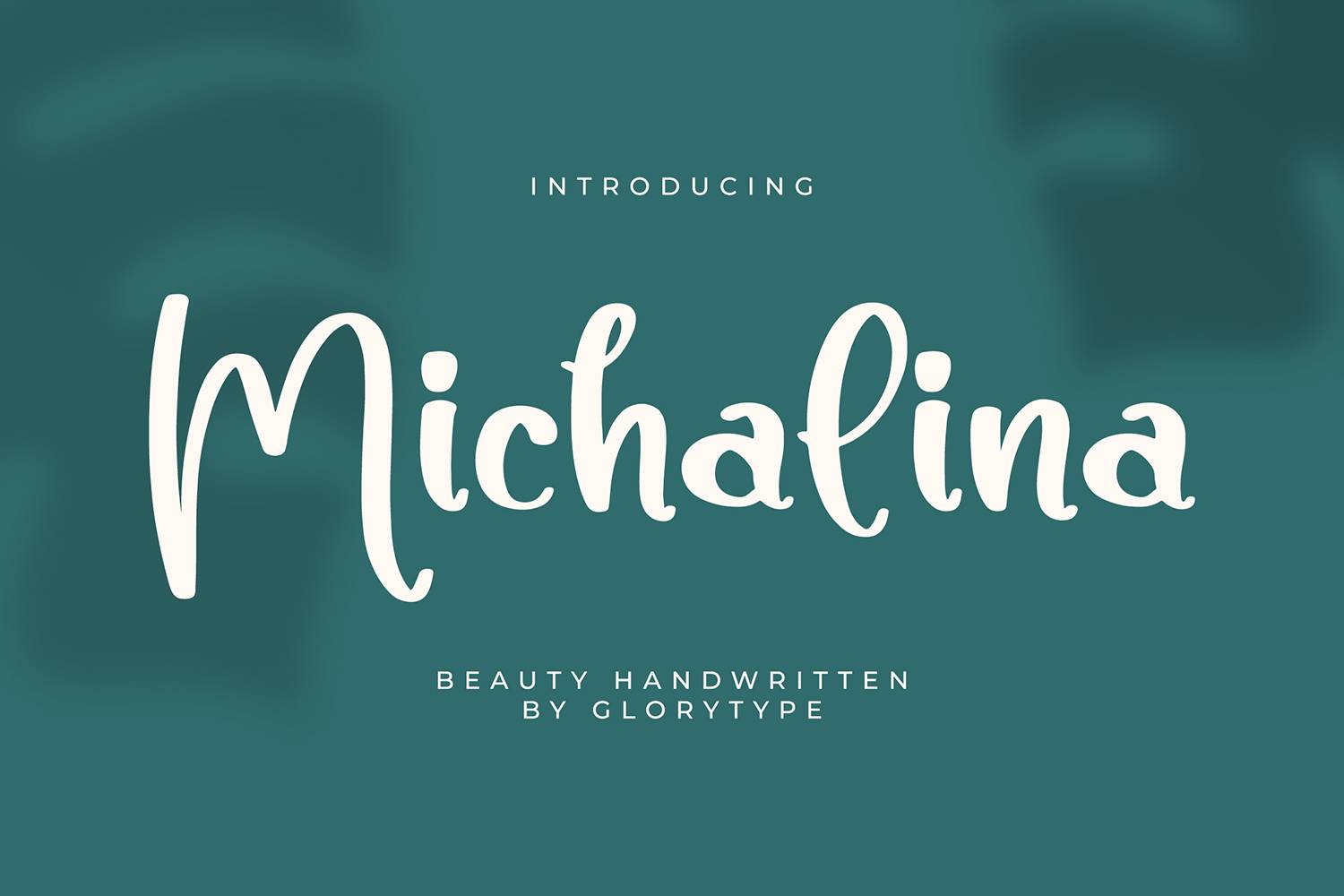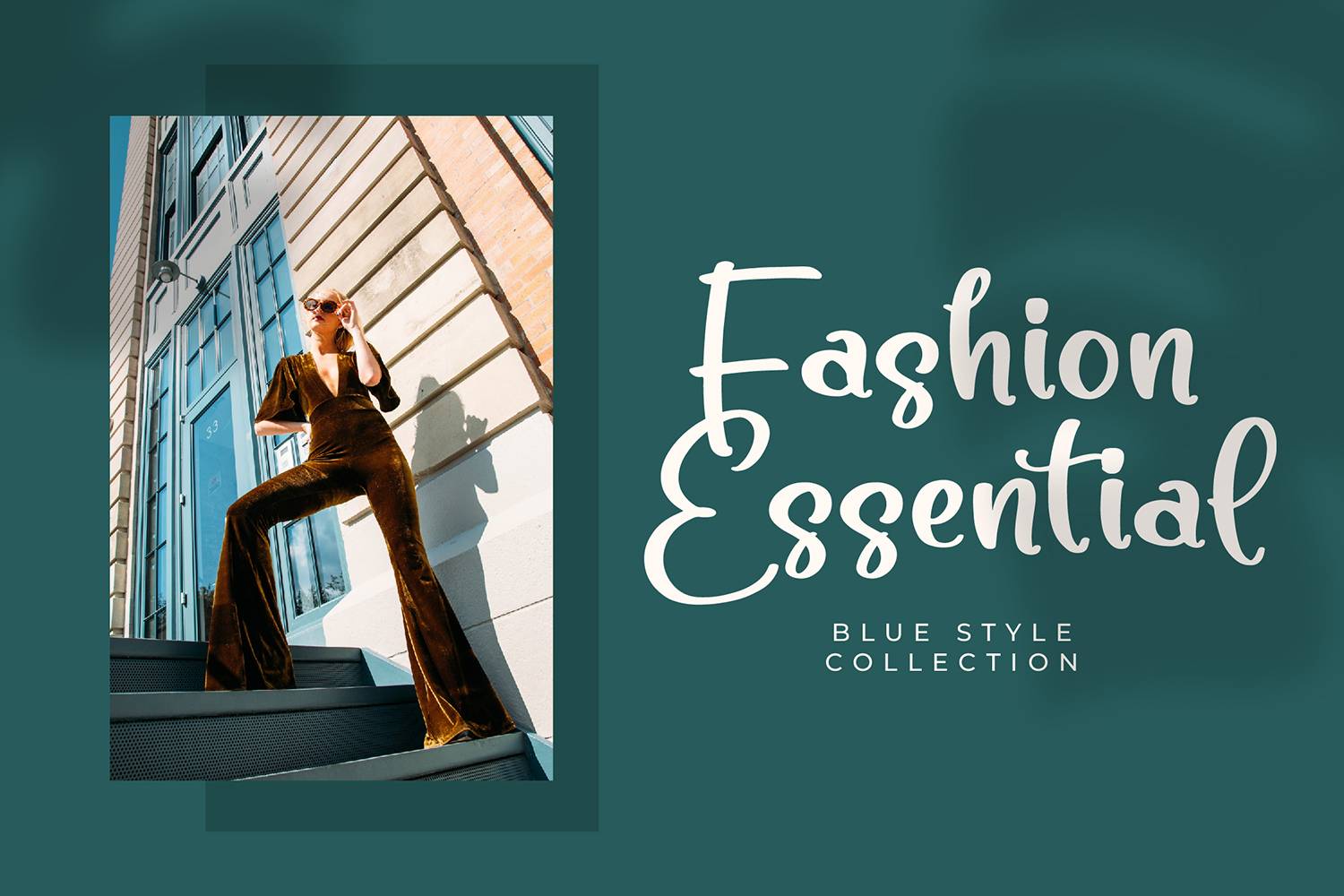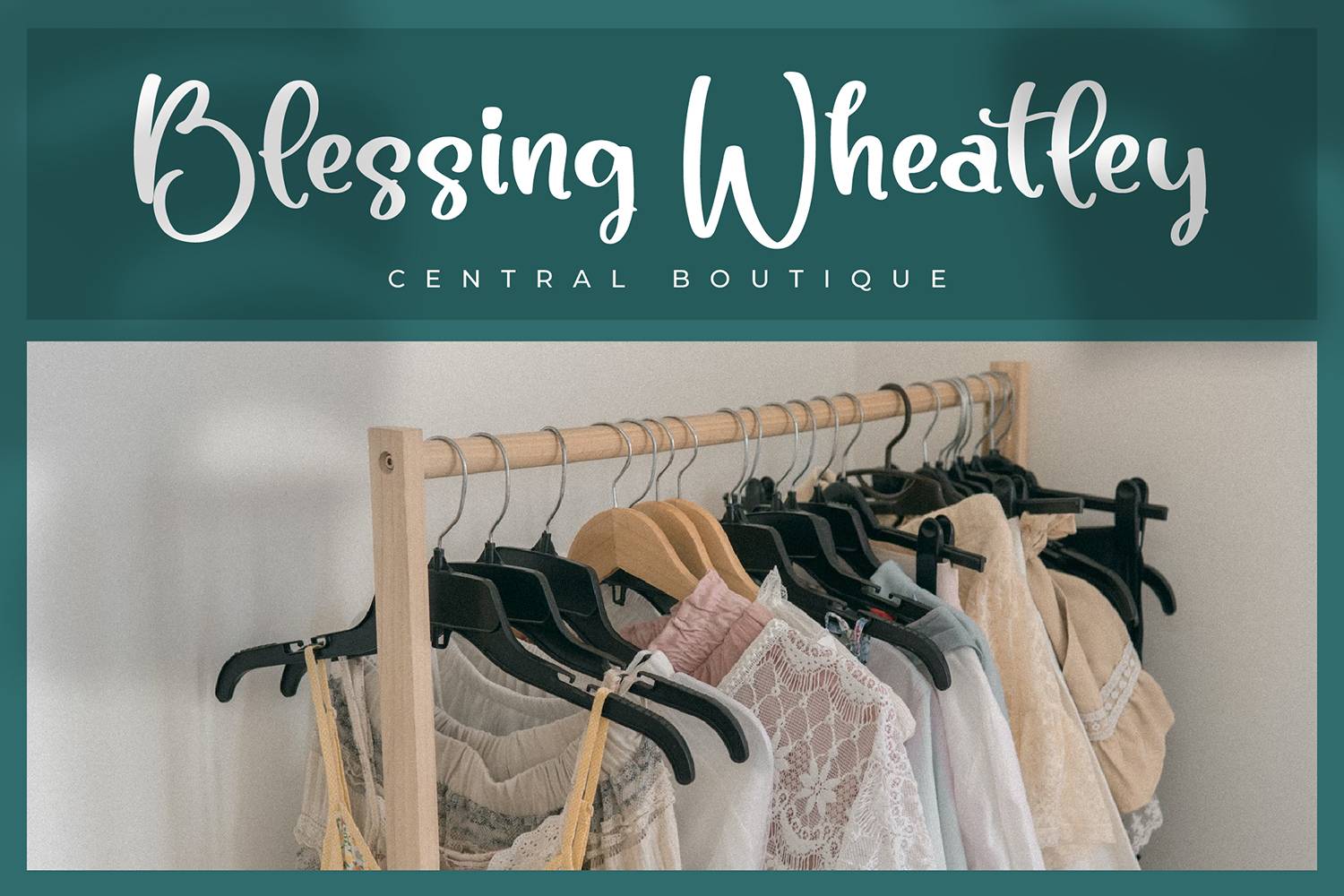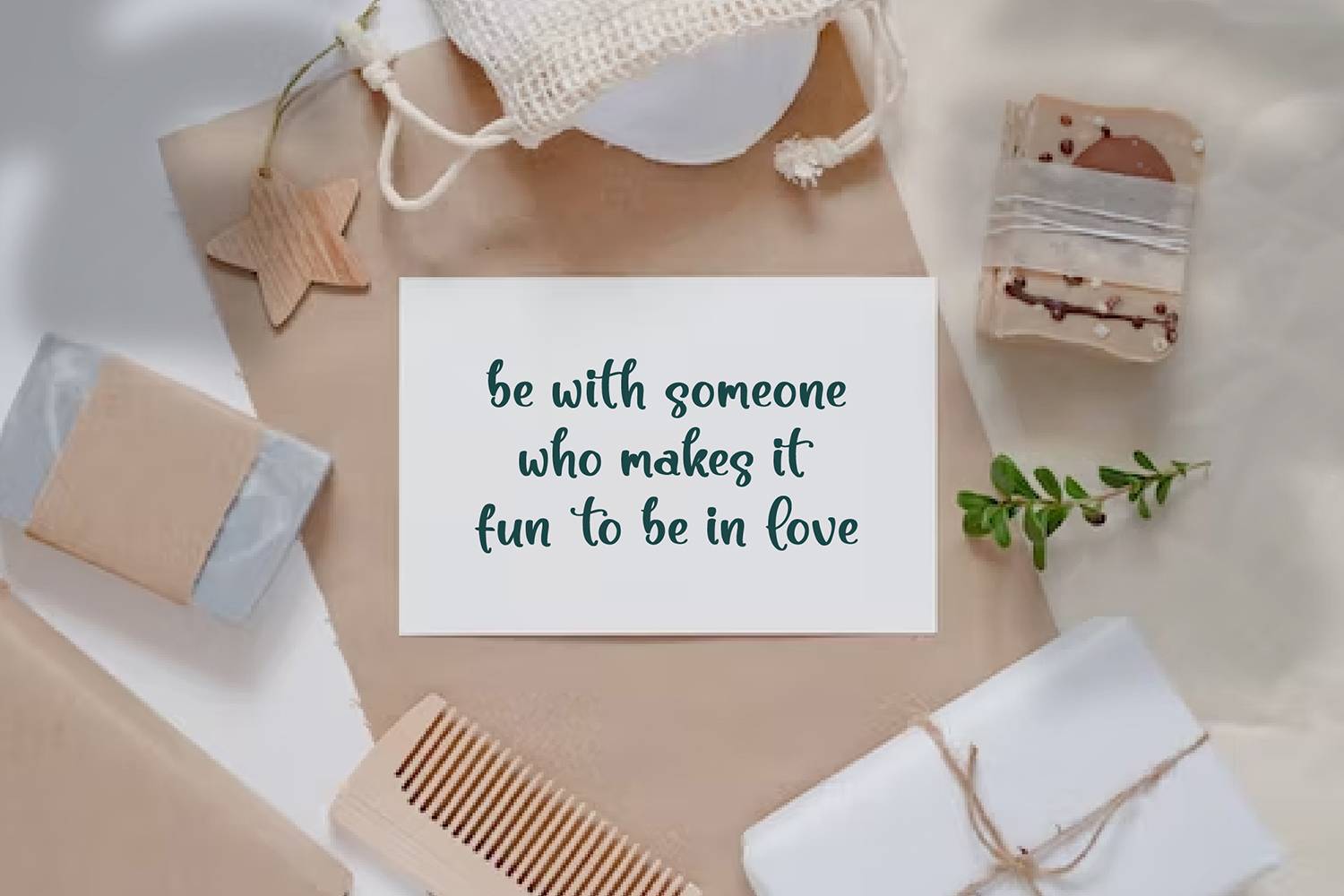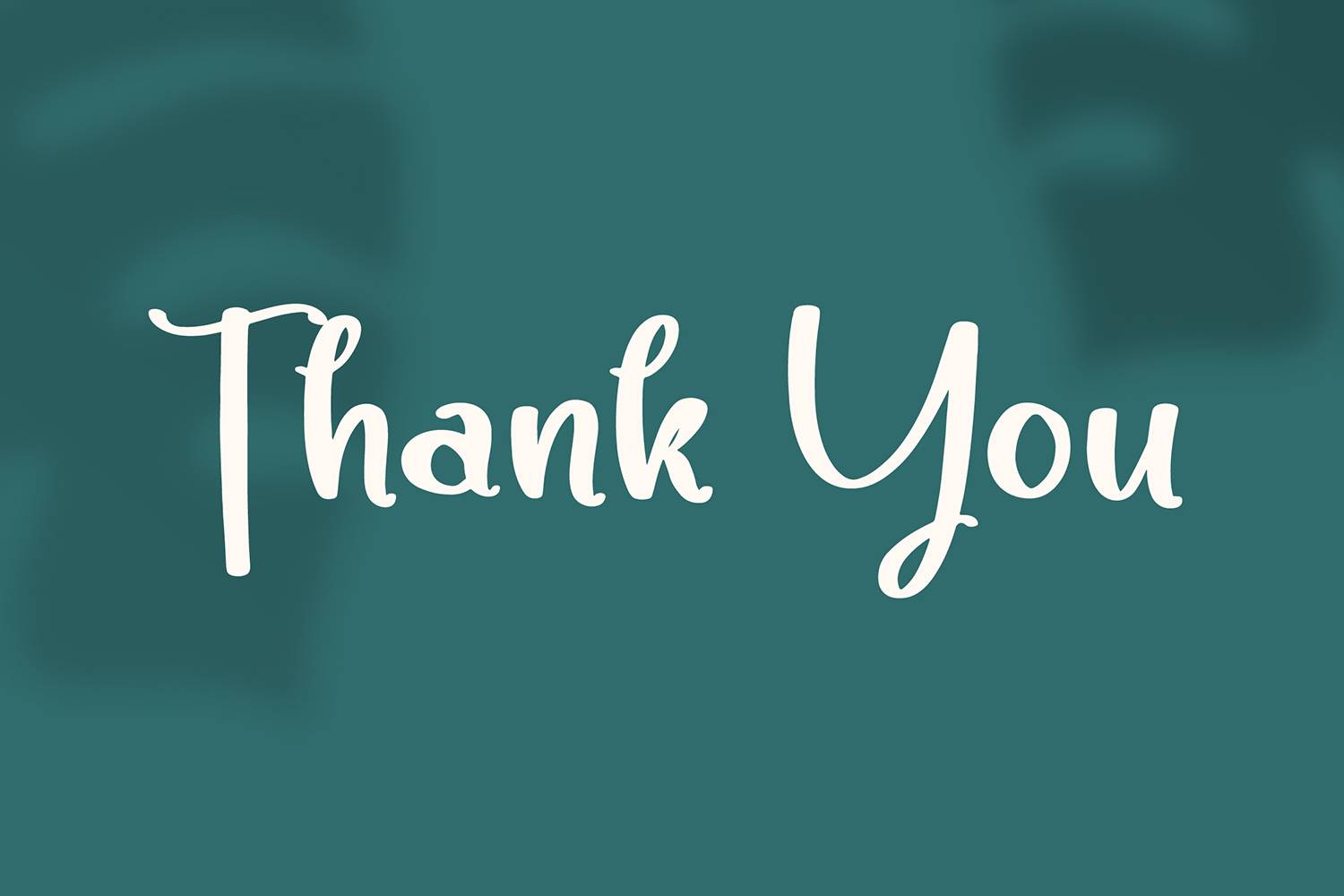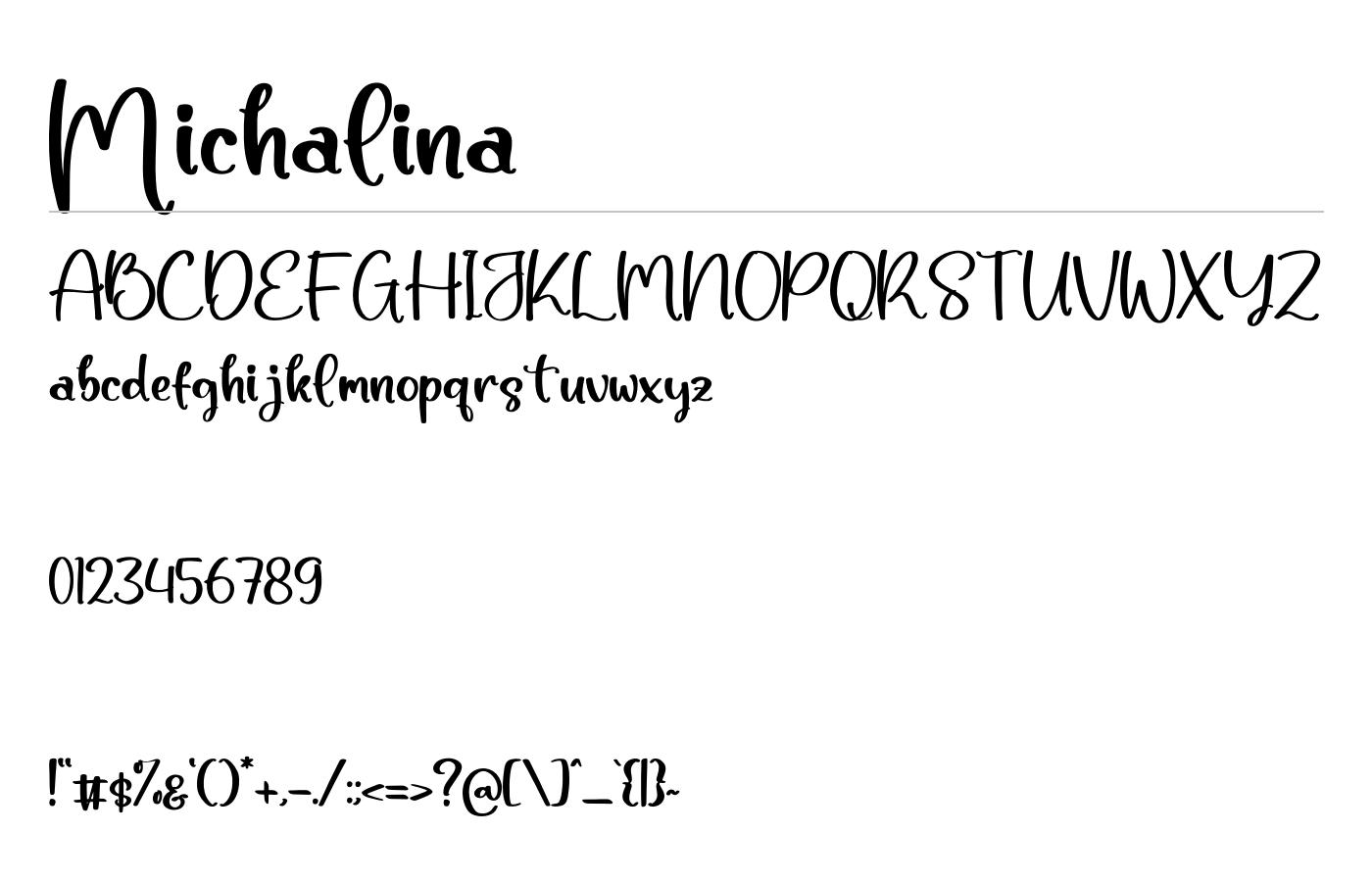
Michalina is a whimsical script font with a playful, hand-drawn feel that combines tall, thin letterforms with uneven strokes and charming, organic curves. Its casual yet elegant style makes it ideal for creative branding, invitations, and headlines where a friendly and approachable tone is desired. This font works well in projects that seek a personal touch without sacrificing readability or character.
Michalina Font
About Michalina Font